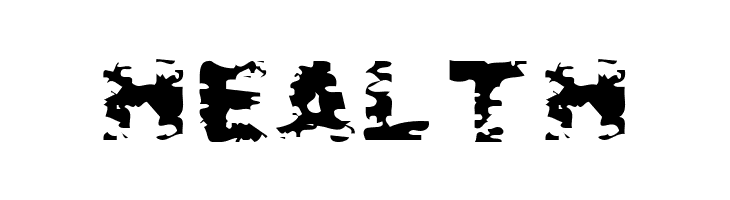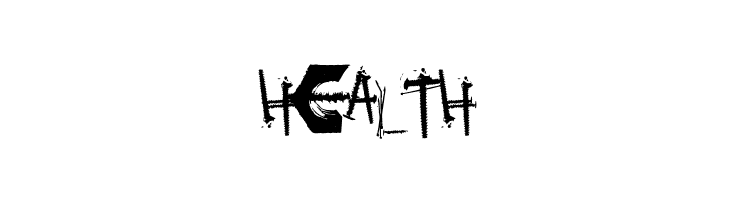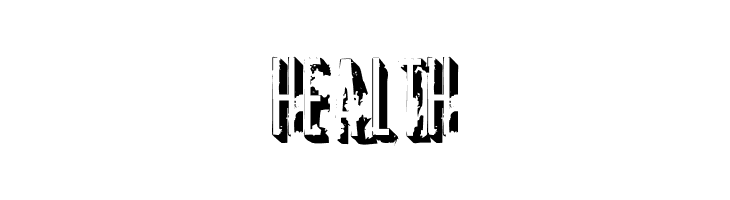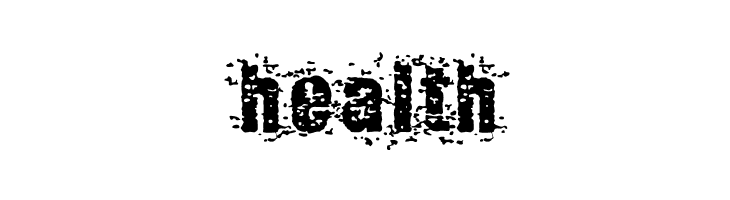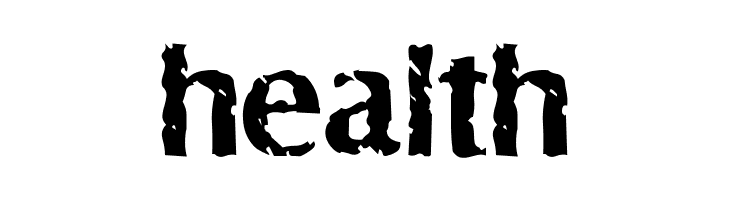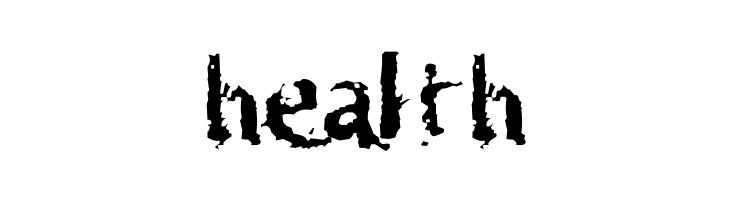
A bold, distressed font with an edgy, graffiti-like appearance.
A distressed, grunge font with a torn, edgy appearance.
A distressed, grunge-style font with a textured, urban appearance.
A bold, distressed font with a vintage, grunge aesthetic.
A distressed, grunge-style font with a rough, textured appearance.
A bold, distressed font with a grunge, textured appearance.
A bold, distressed font with a grungy, textured style.
A bold, grungy font with a distressed, hand-painted appearance.
A bold, distressed font with a rebellious, hand-crafted look.
A bold, distressed font with jagged, ink-splattered strokes for a grungy, rebellious look.
A bold, distressed font with a grunge, textured appearance.
A chaotic, distressed font with jagged strokes and splattered ink effects.
A rugged, distressed font with a hand-drawn, edgy style.
A bold, distressed font with a grunge texture and rugged appearance.
A bold, distressed font with a grungy, textured appearance.
A bold, distressed font with a gritty, urban style.
A bold, distressed font with a grunge aesthetic and rough edges.
A distressed, grungy font with a bold, chaotic style.
A textured, distressed font with a rugged, urban feel.
A bold, distressed font with a grunge aesthetic.
A bold, distressed font with a grunge aesthetic and rugged, weathered characters.
A bold, distressed font with a grunge aesthetic and textured appearance.
A bold, distressed font with a grunge aesthetic, perfect for edgy designs.